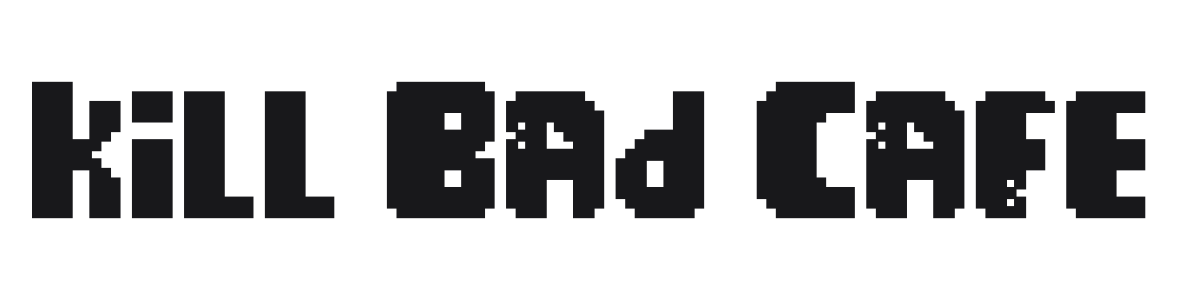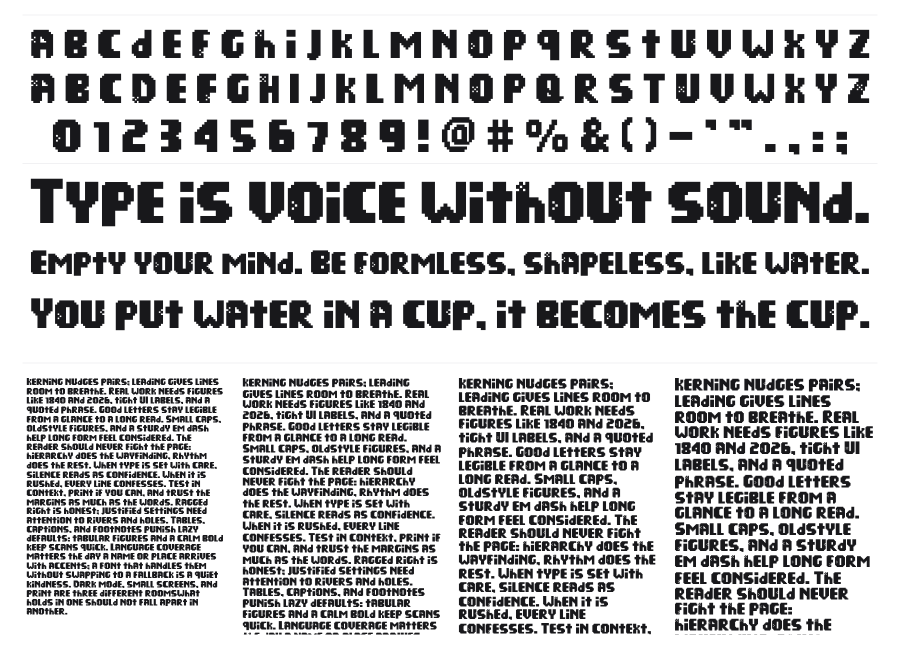
Kill Bad Cafe
Kill Bad Cafe is a bold retro pixel font built on NES-era game aesthetics with chunky blocky characters rendered on a pixel grid. The heavy weight and squared-off construction give it real punch at large sizes, while the subtle pixel-corner details keep it feeling authentic rather than imitative. Strong for game titles, YouTube channel branding, and any project that needs an unapologetic 8-bit attitude.